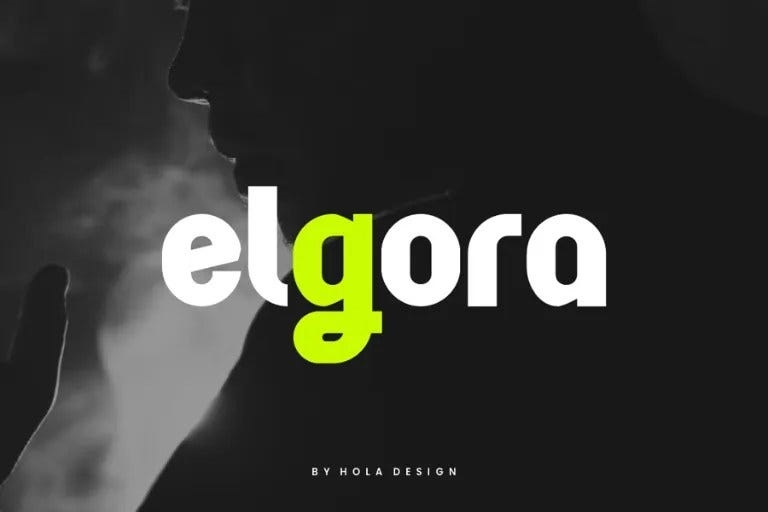
Elgora Font
Elgora Font is unique. Available for use in your designs like labeling, movie scene, poster, movie title, concerts, album art, logos and so on. The free version has all alphabets both small and capital and a handful of other characters as well.
Elgora Sans Serif Font